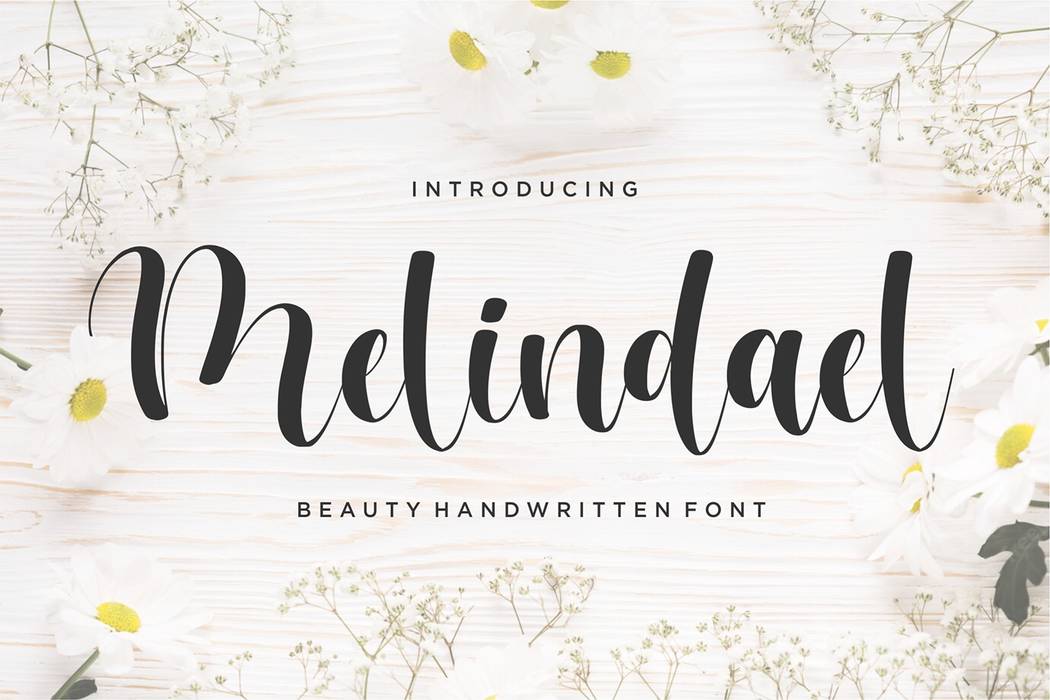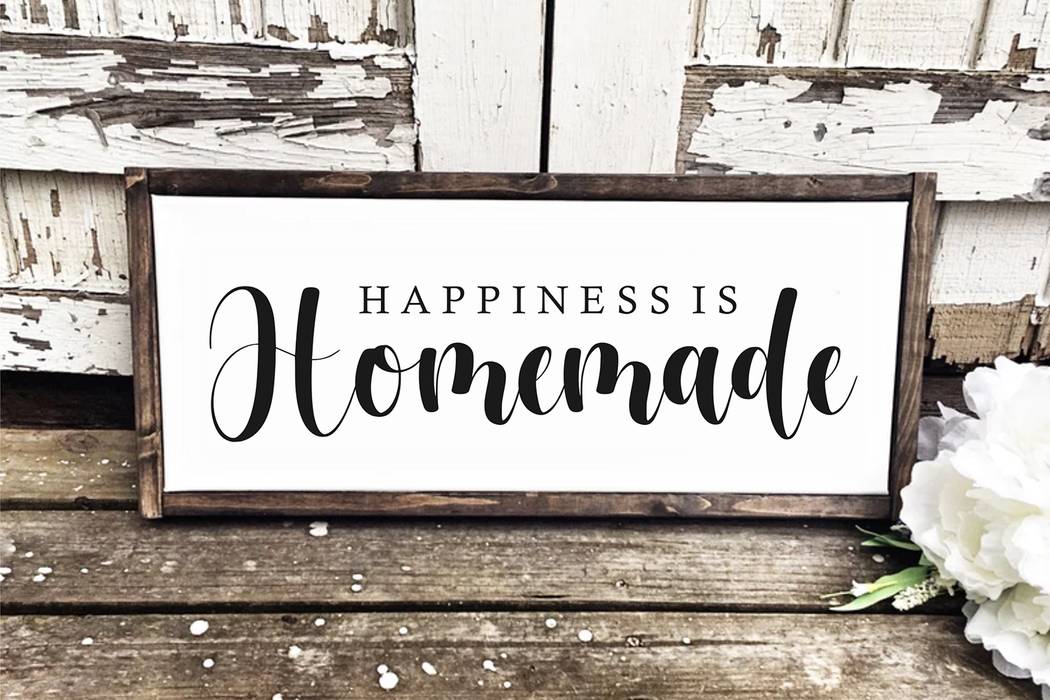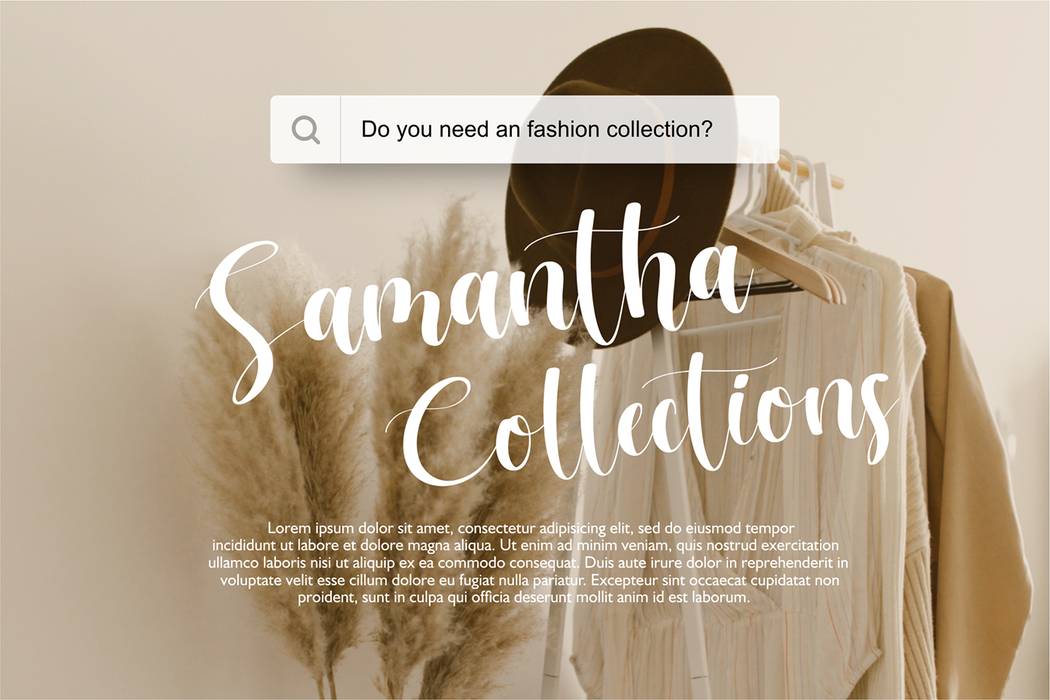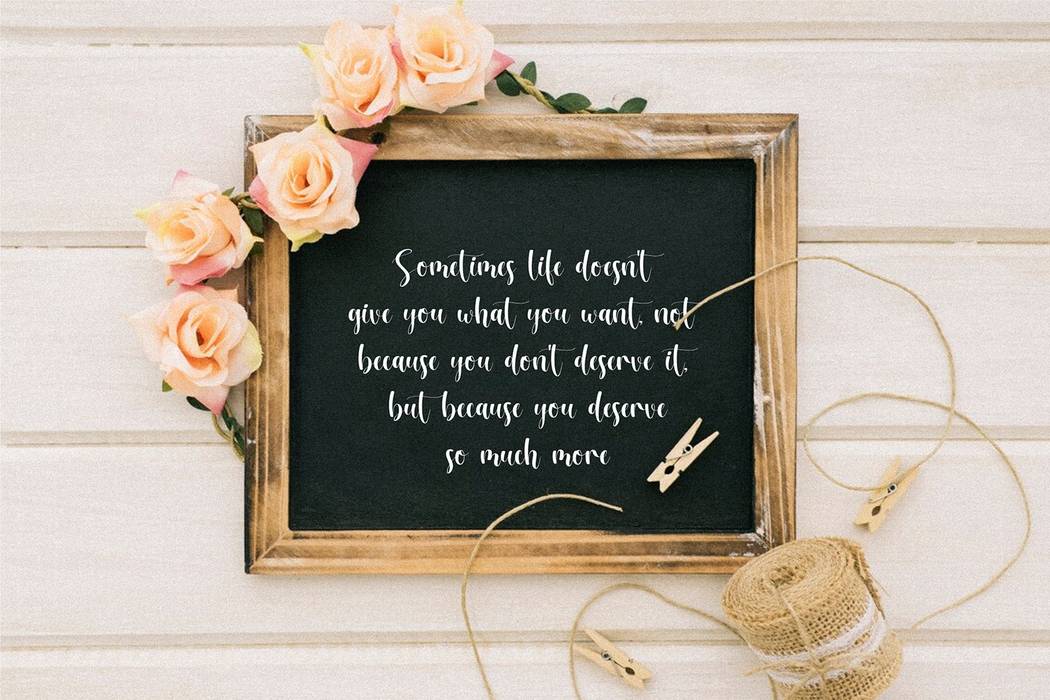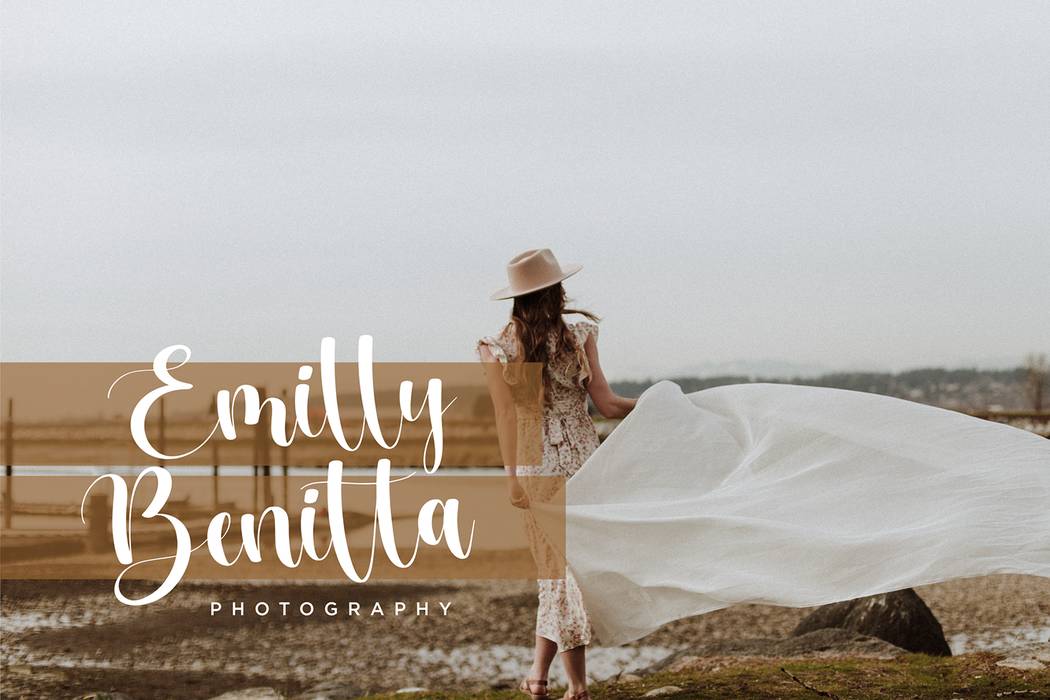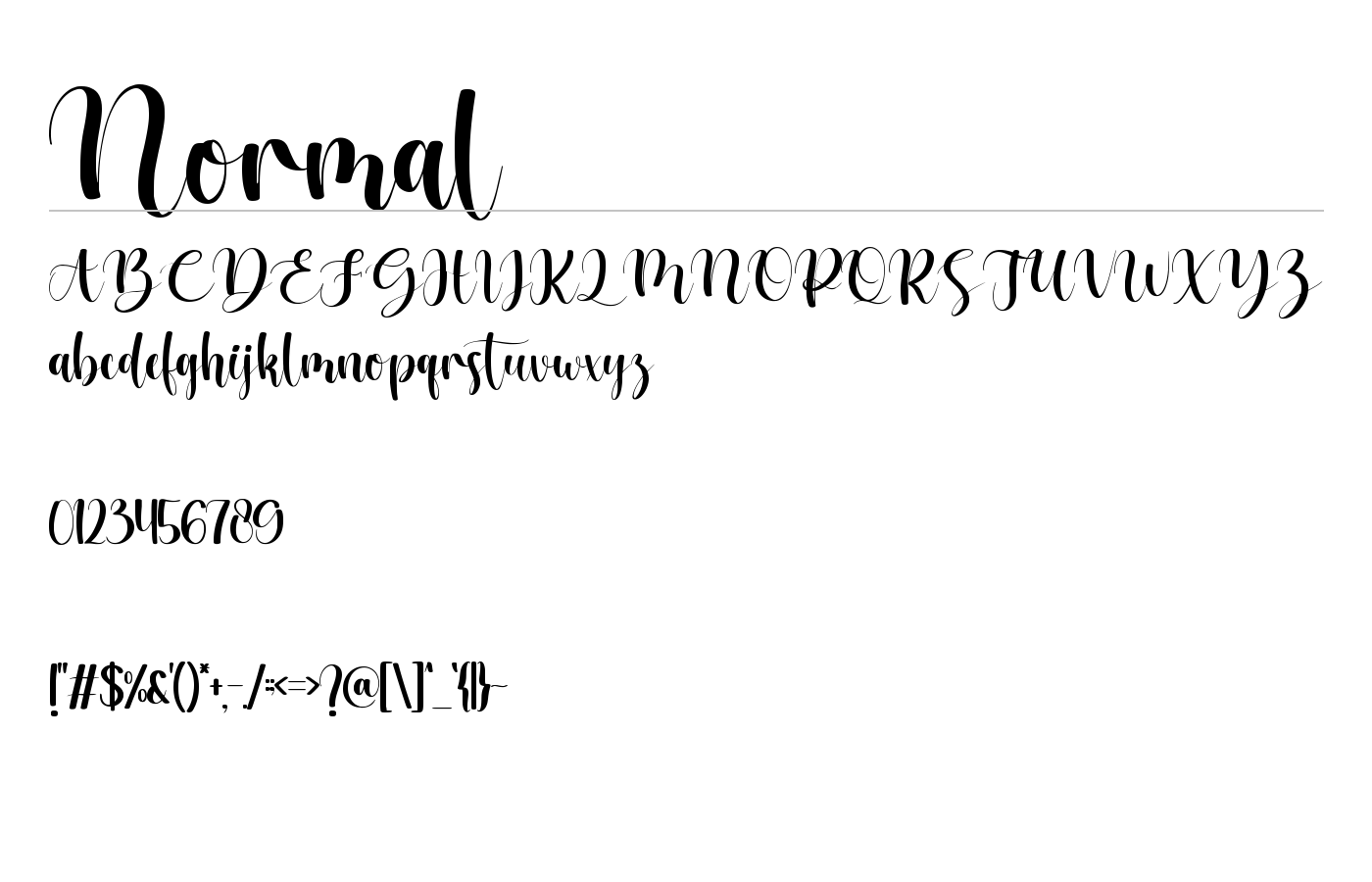
Melindael is an elegant script font with a lively and feminine feel, characterized by its flowing, high-contrast strokes and delicate swashes. Its combination of smooth, thick-to-thin transitions and playful letterforms makes it perfect for invitations, branding, and stylish display uses where a touch of sophistication and charm is desired. This font shines in designs that seek to convey beauty, grace, and a personal, hand-crafted touch.
Melindael Font
About Melindael Font